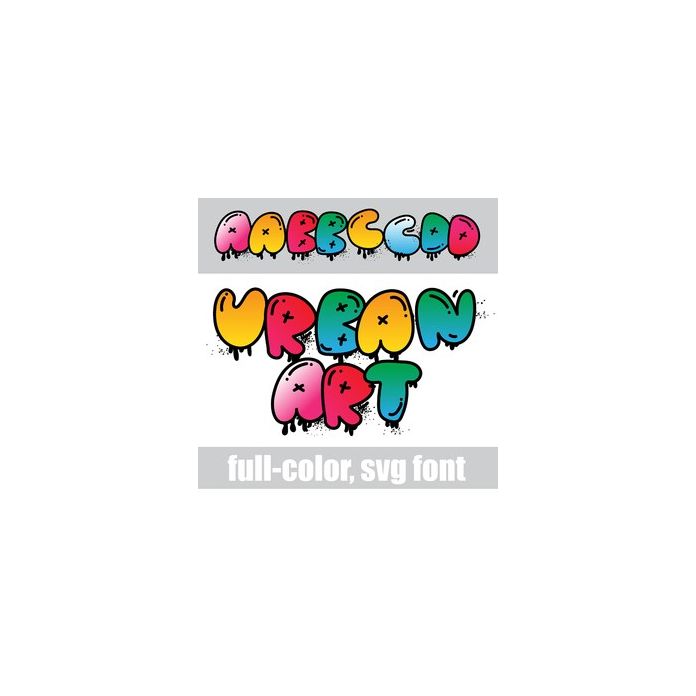
This full-color font features dripping, graffiti-style lettering in bright, gradient colors. There is an alt case w/ additional colors you can access through your system or Silhouette's glyph map.